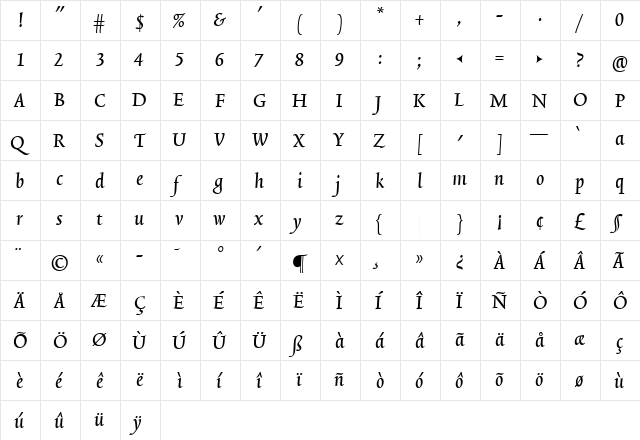
TriniteNo2 Medium
Design Context for TriniteNo2 Typeface
TriniteNo2 offers clean, dependable letterforms without strong stylistic allegiance, making it a practical choice for designers who need flexibility.